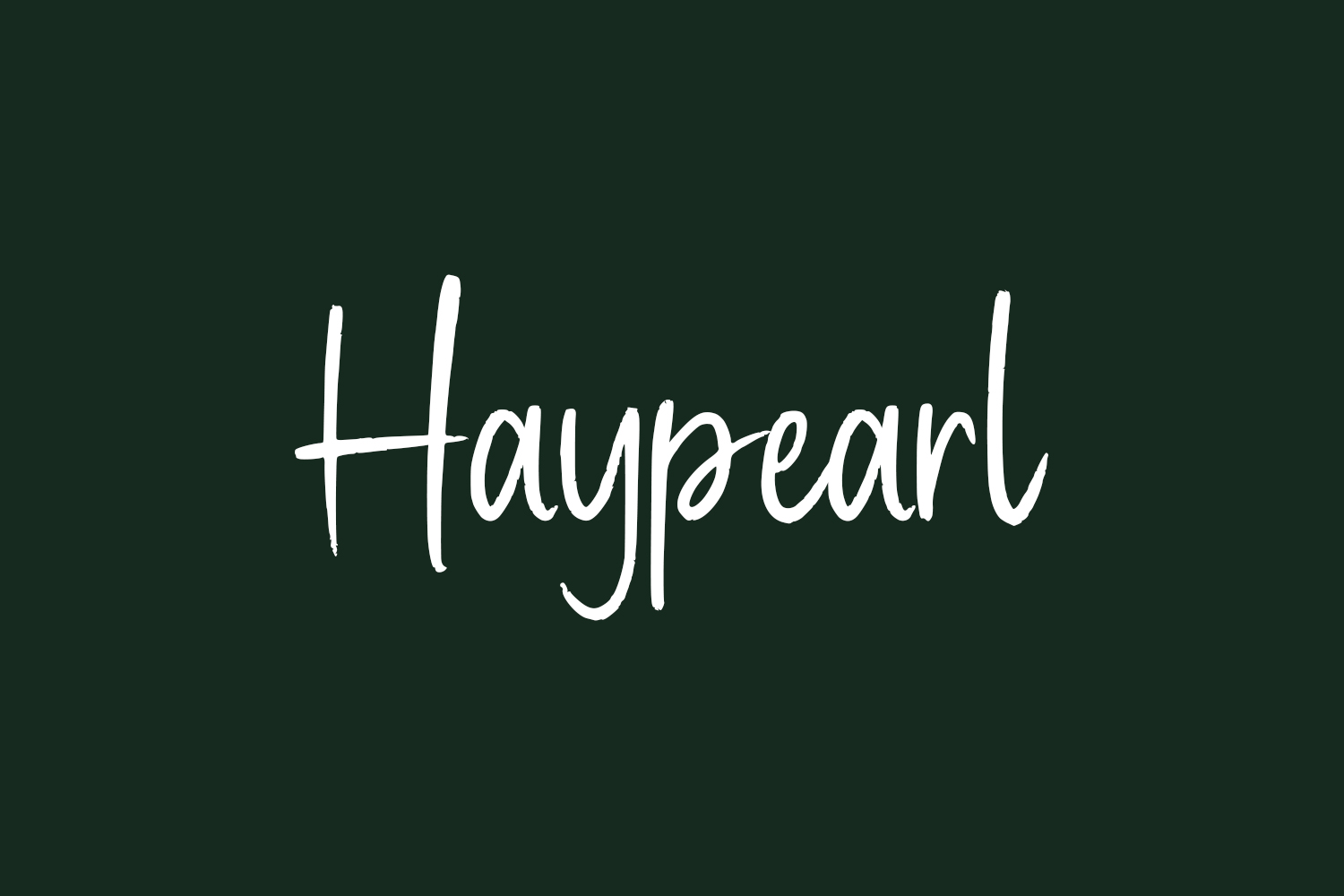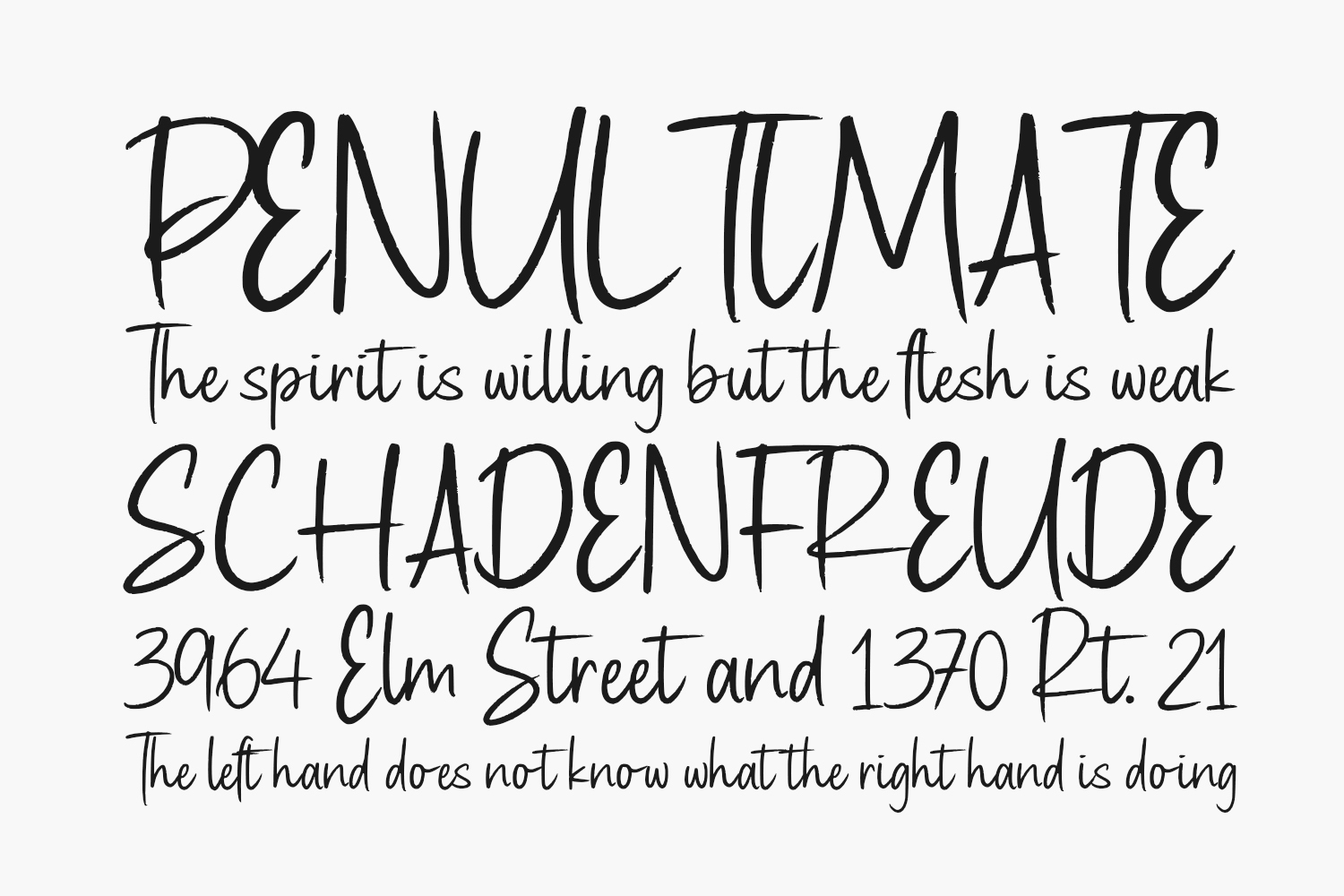
Haypearl Free Font is a brushed and relaxed handwritten font, featuring a modern touch. This design will help your work stand out with its slim and beautiful calligraphy. Haypearl Free Font was designed by Allouse Studio and is free for personal or commercial use.